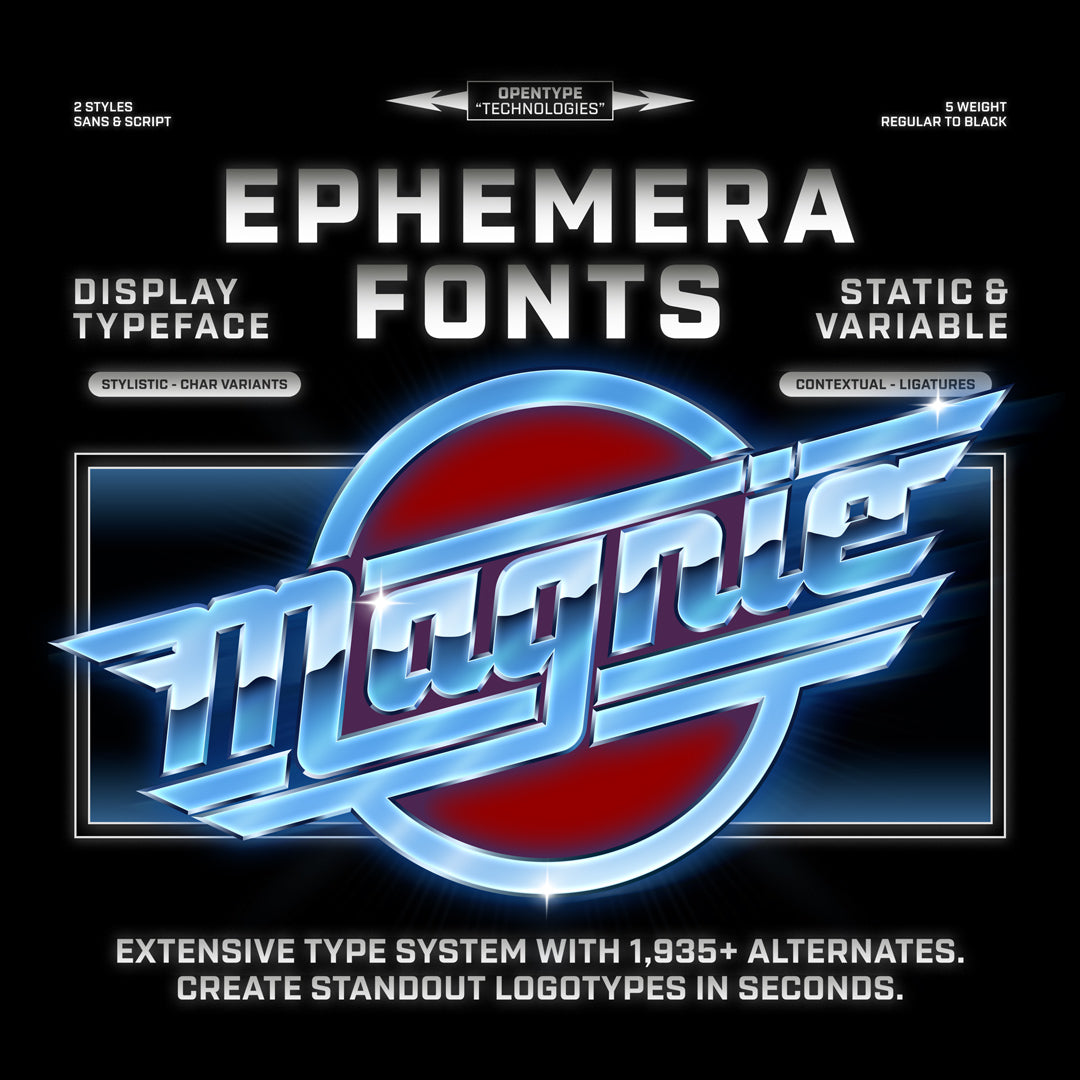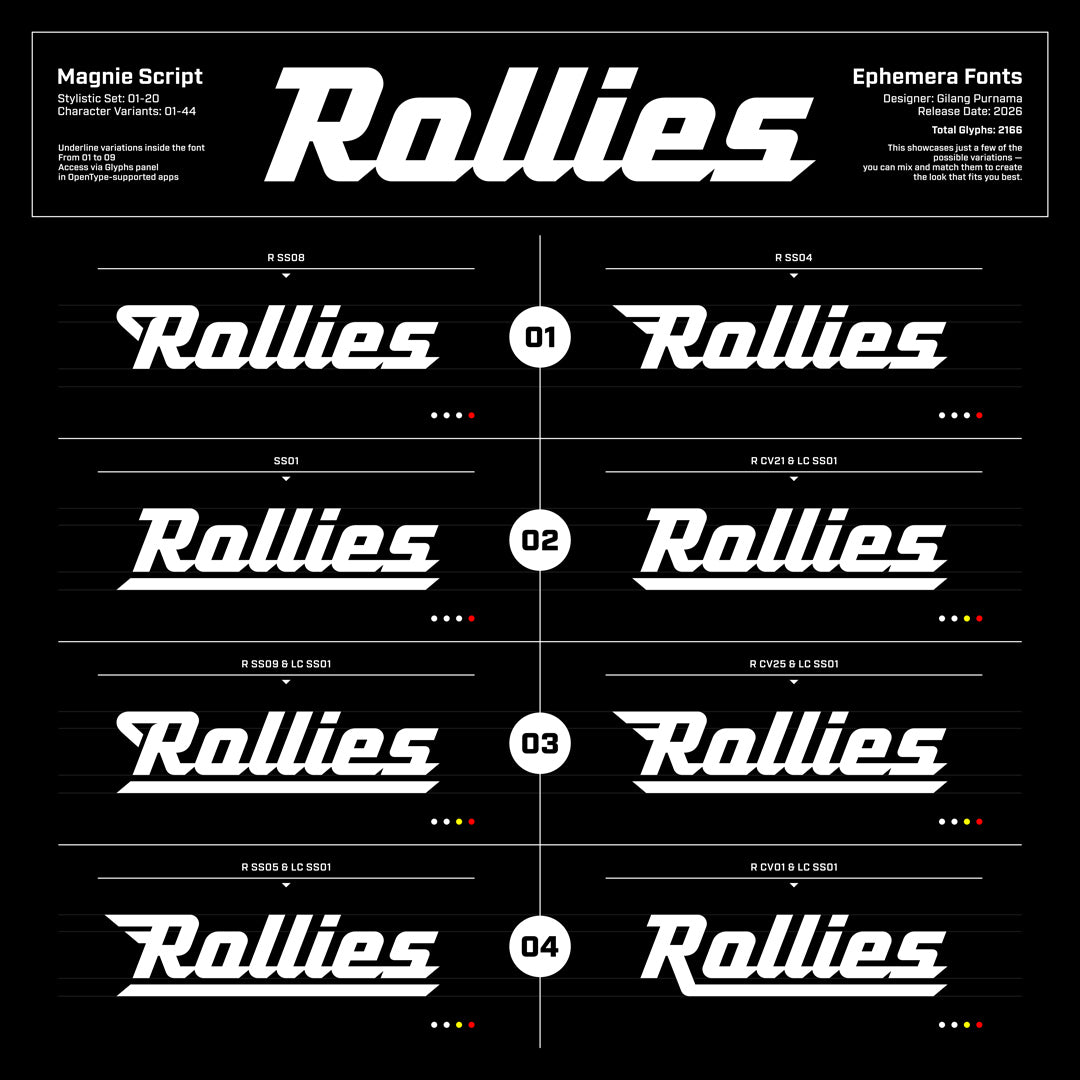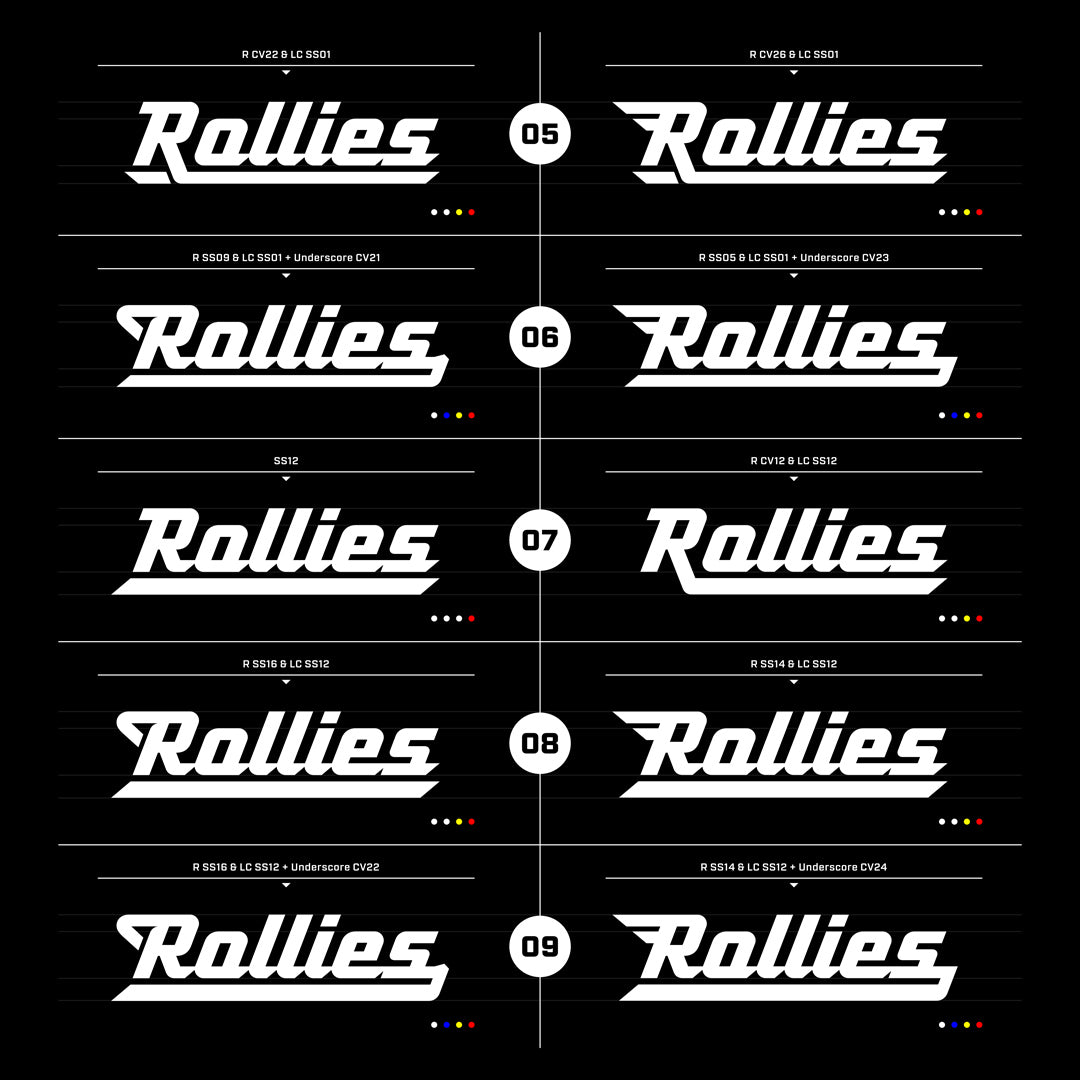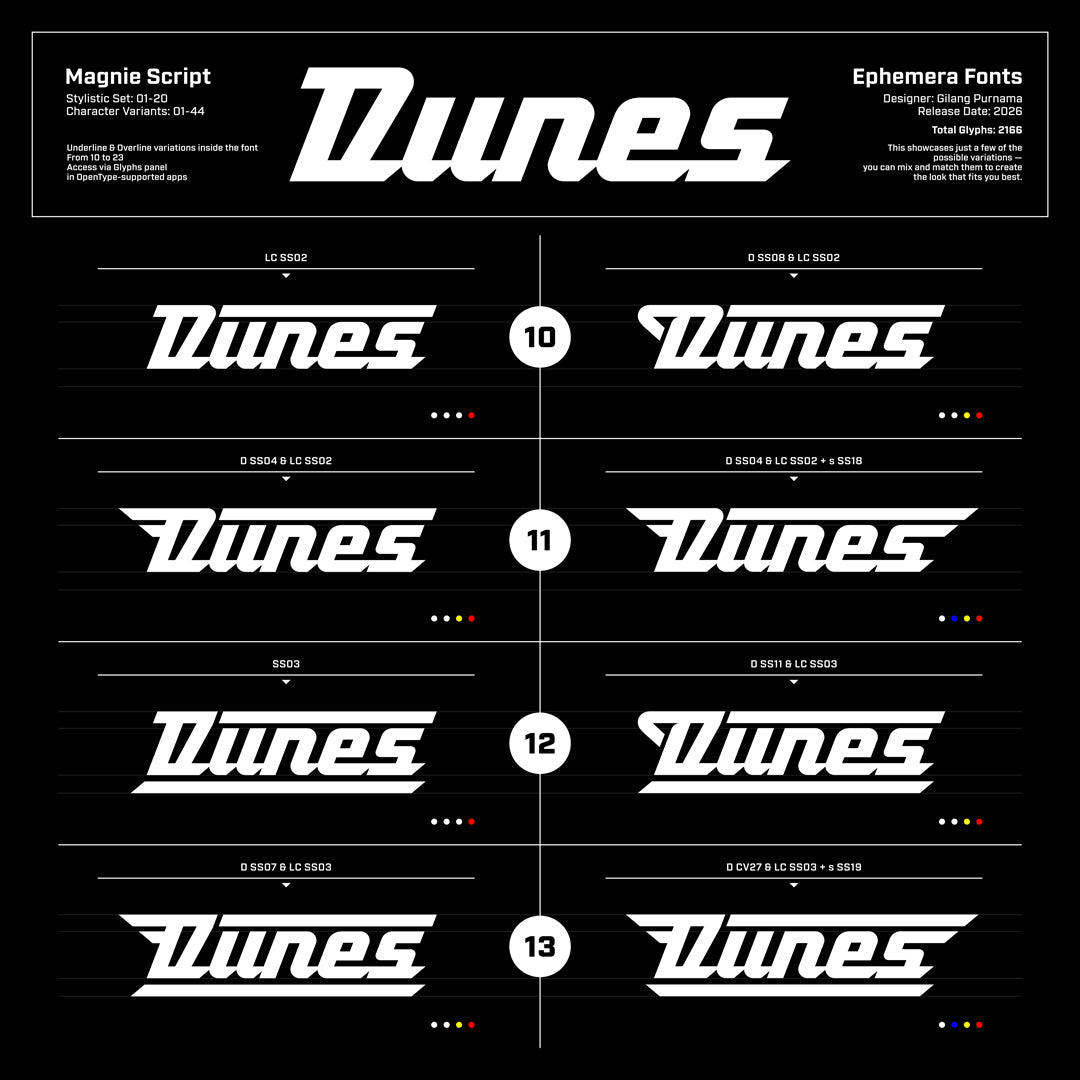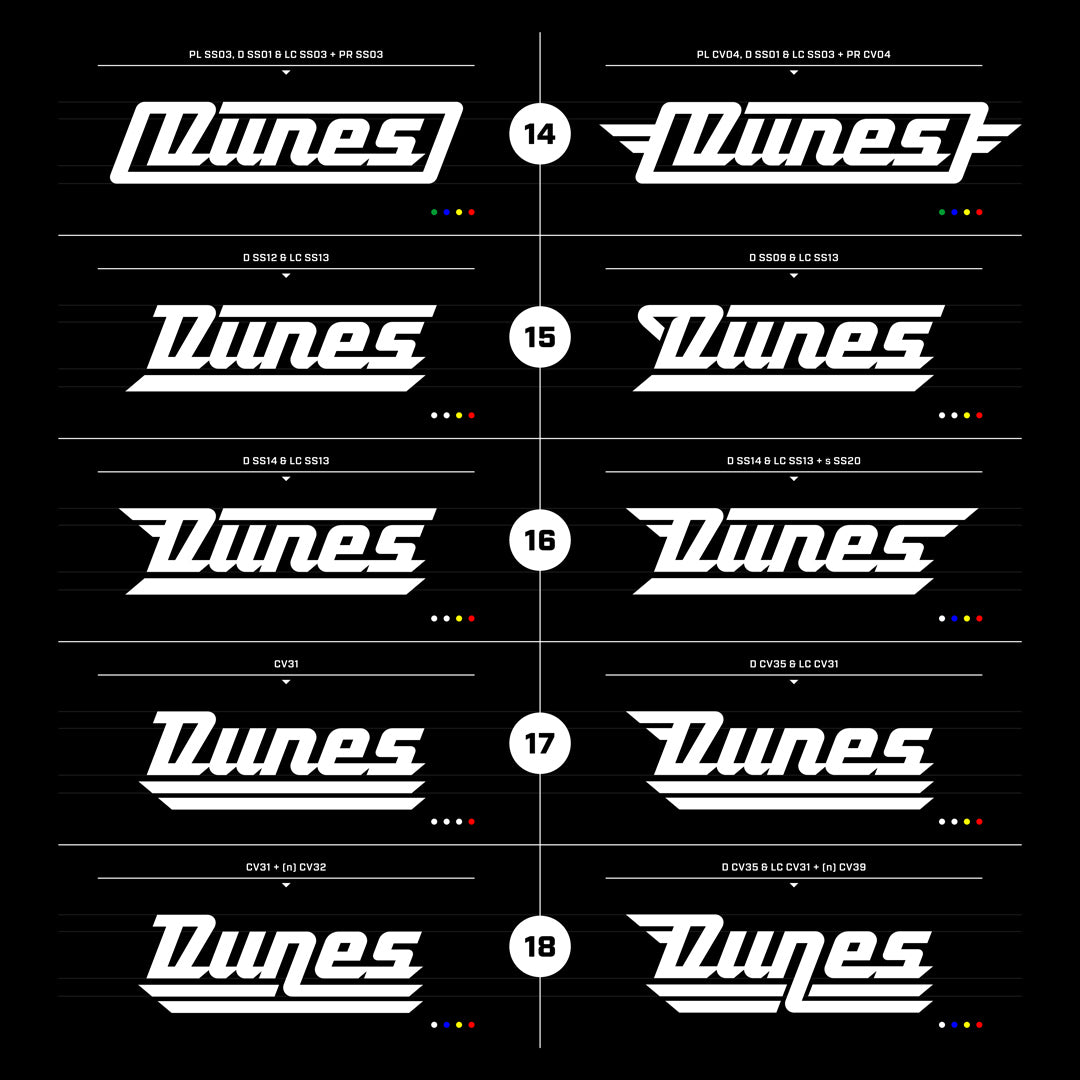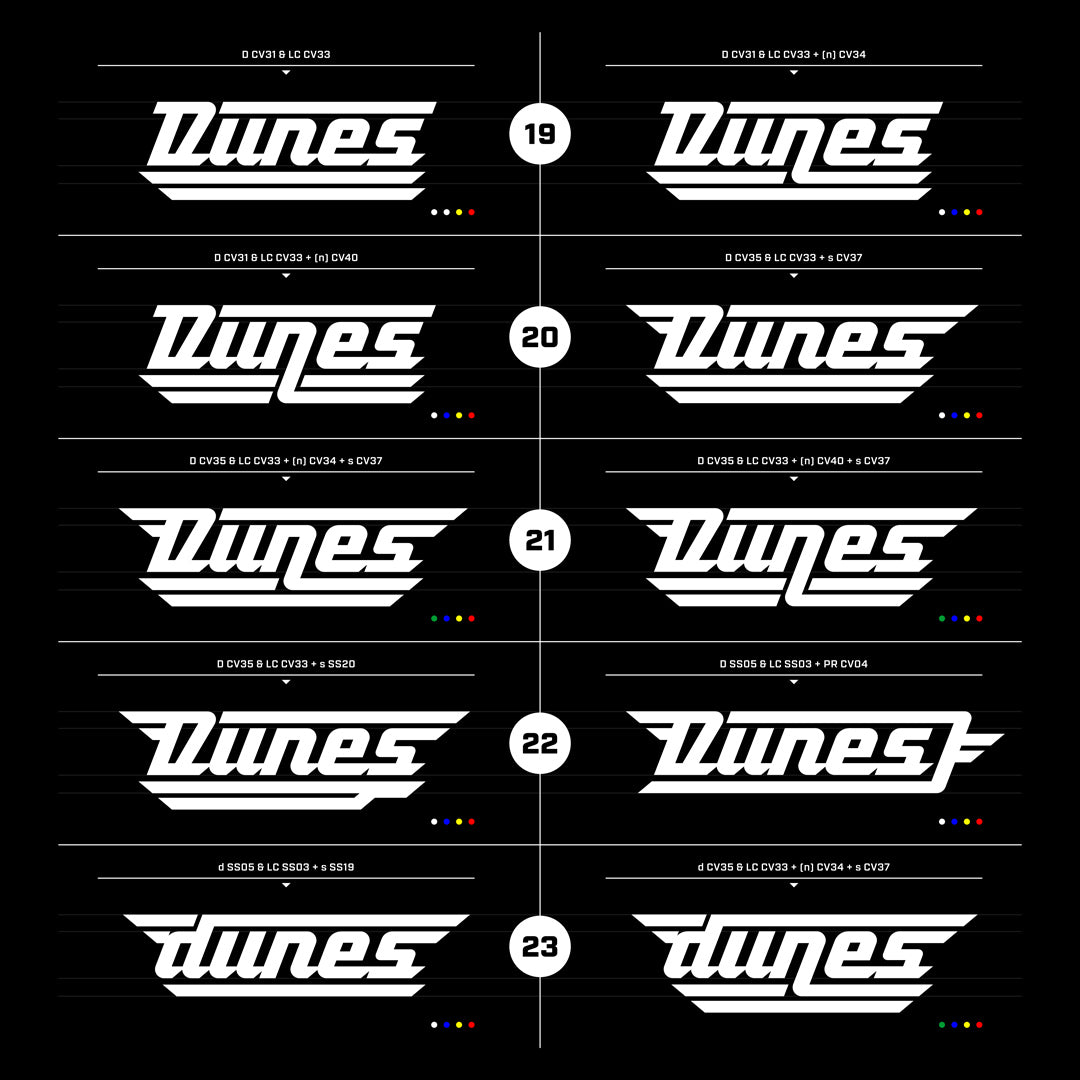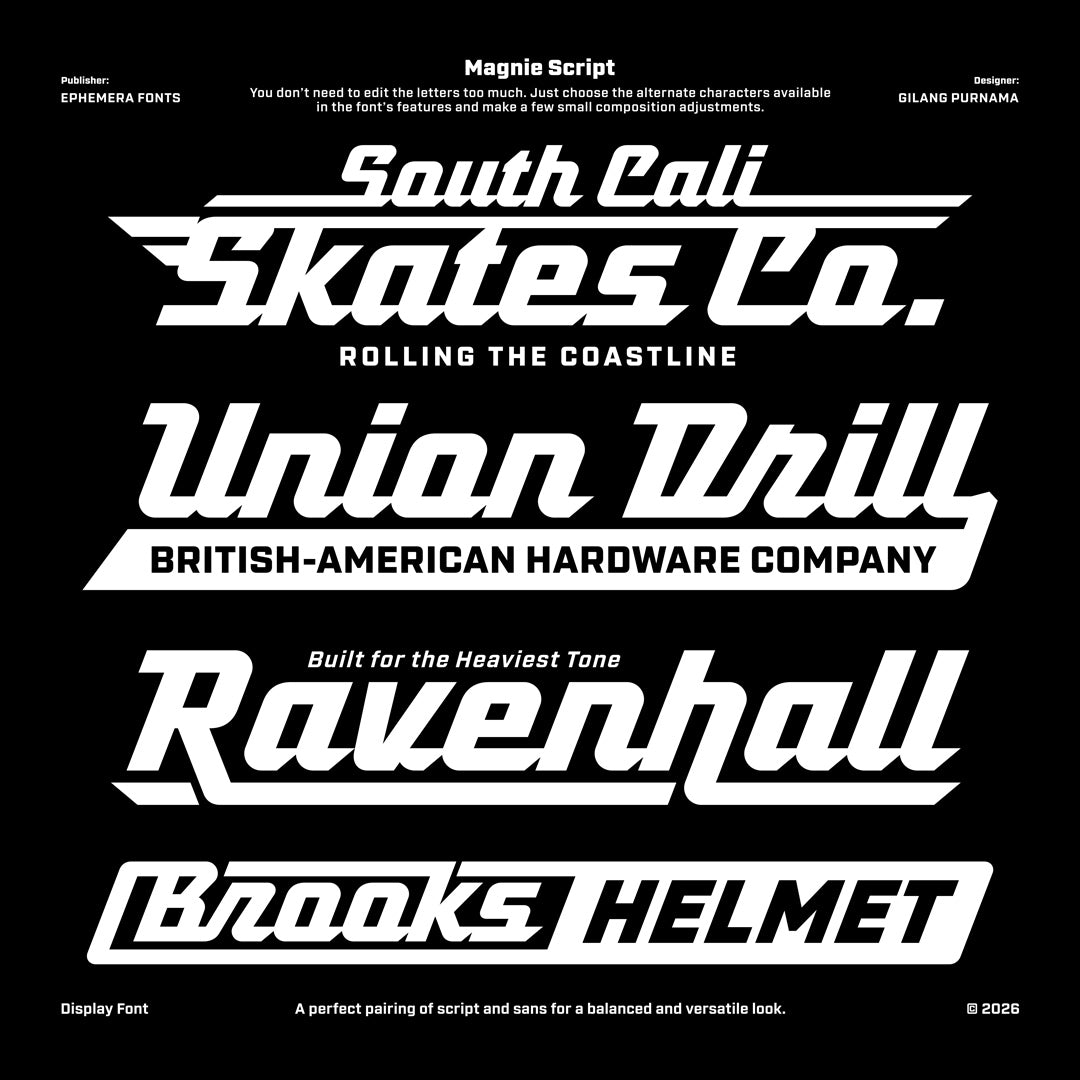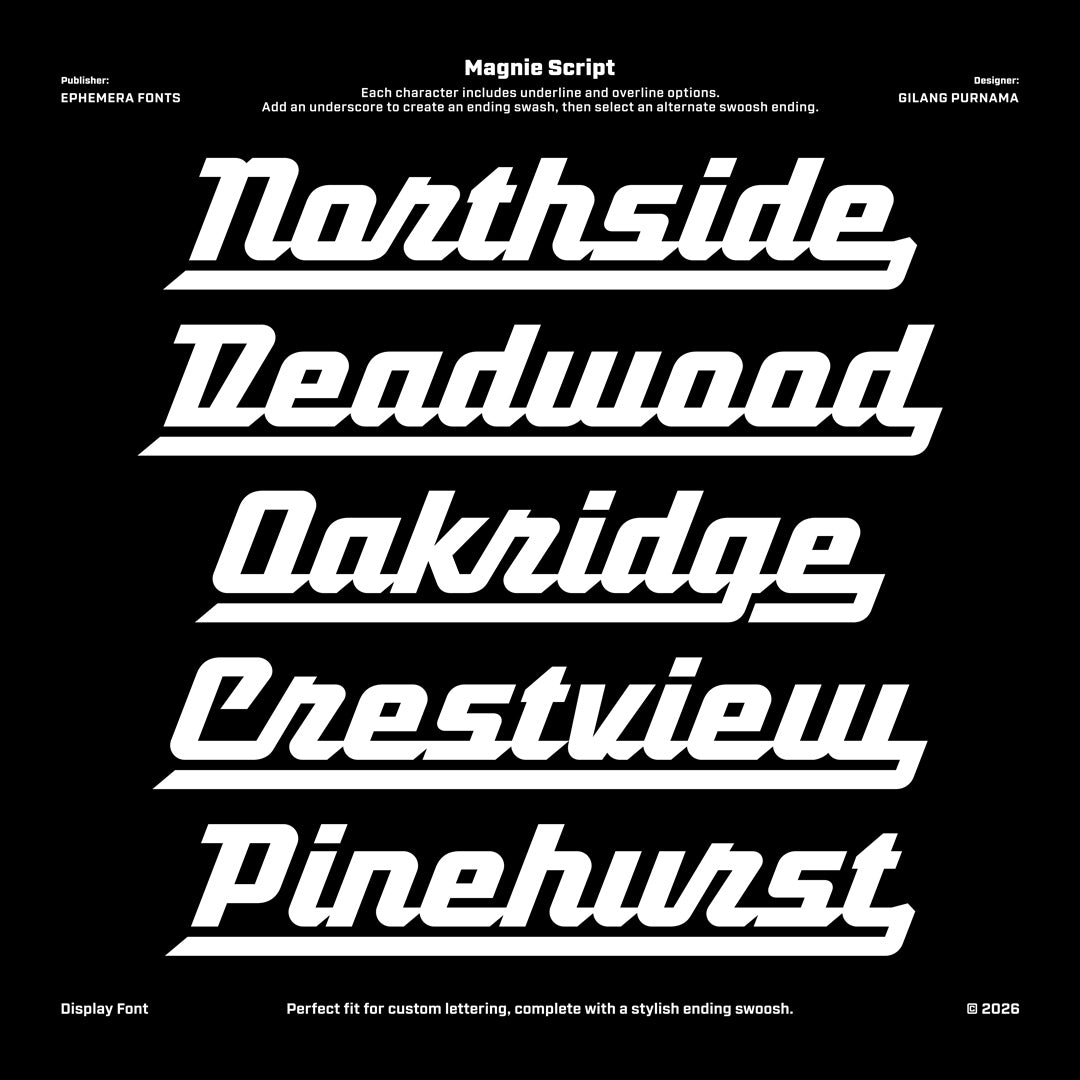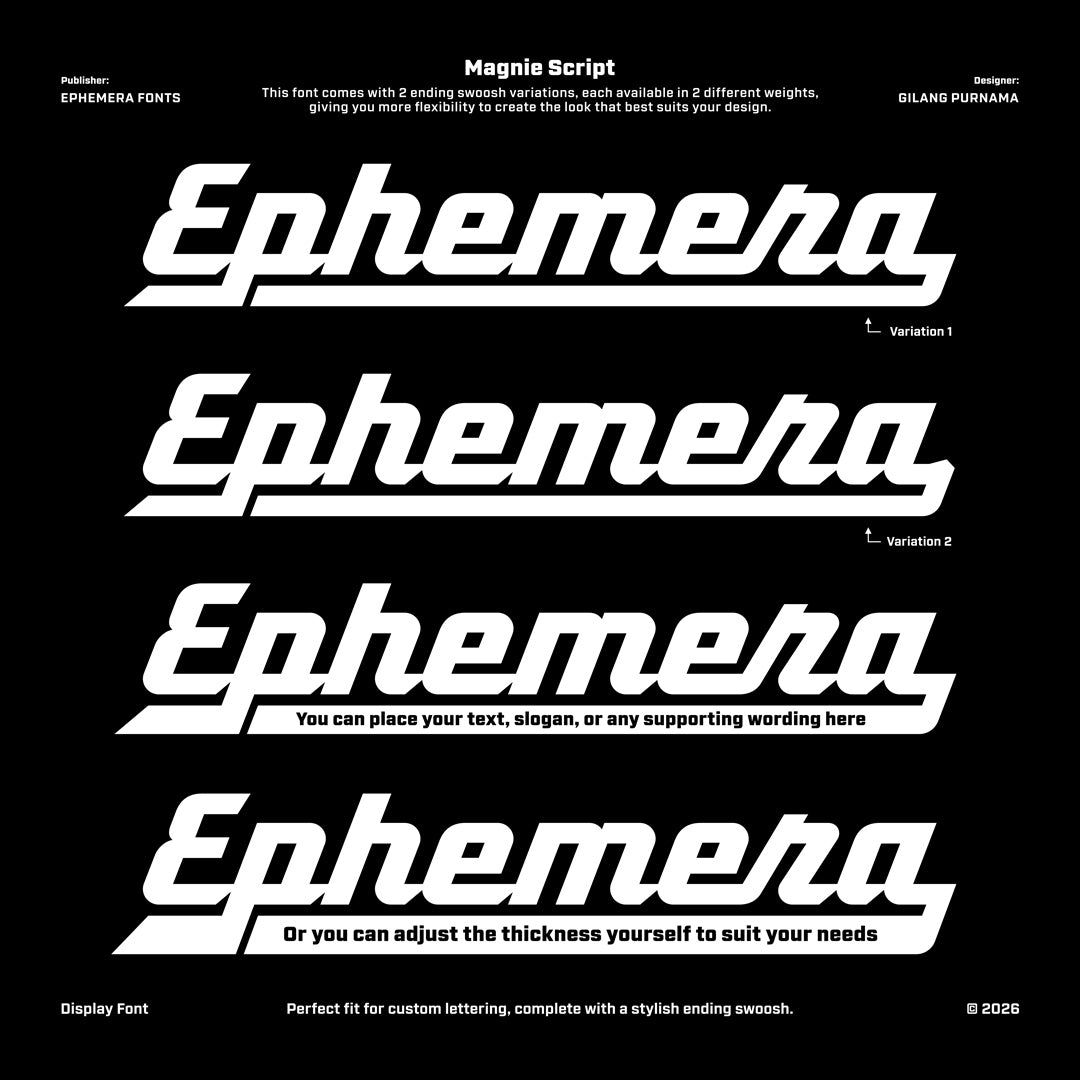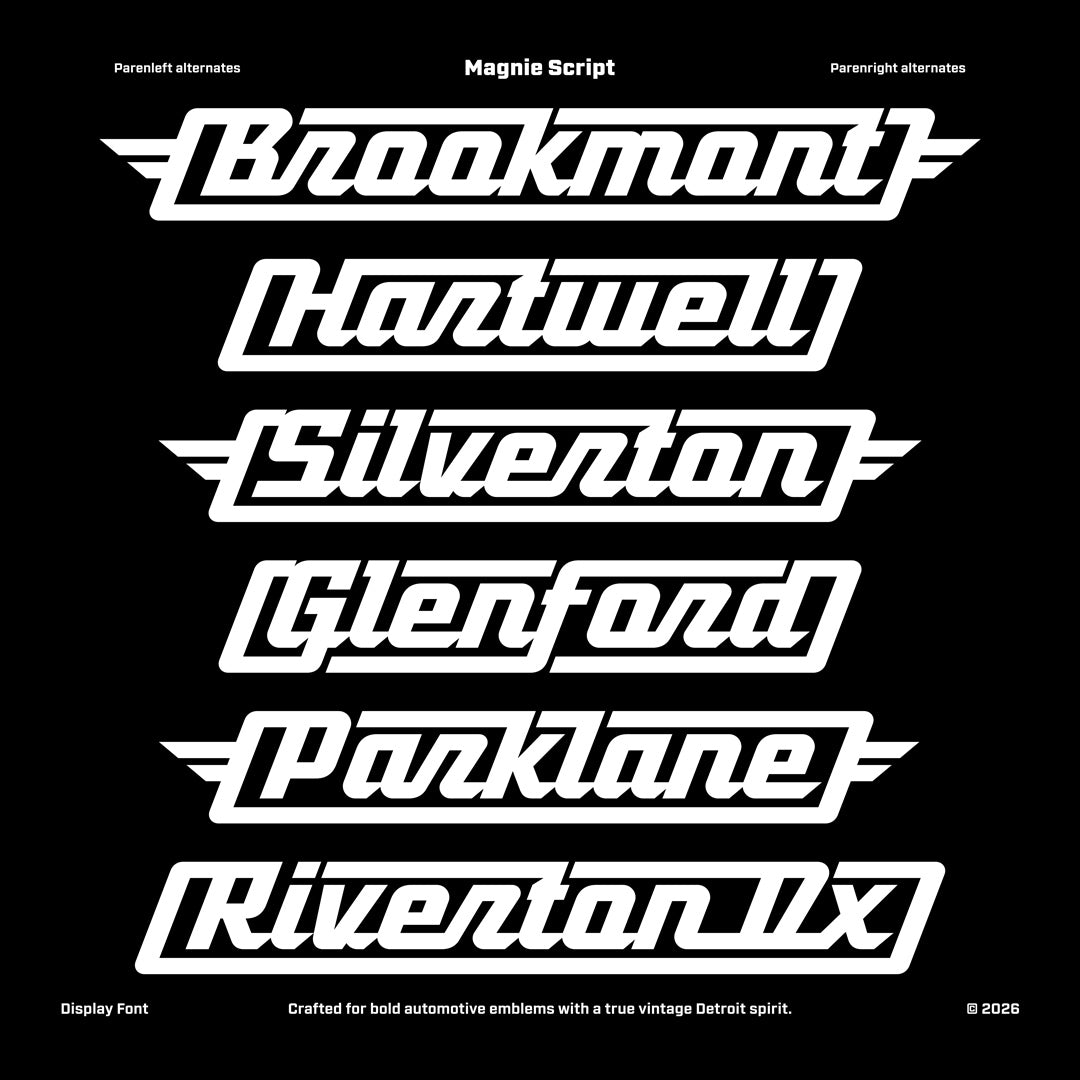
Magnie – Indie Rock Display Font
Retro Display Font + Sans Pairing for Logos, Branding, Emblems, and Vintage-Inspired Design
Bring bold retro character to your work with Magnie Font Duo, a versatile font package made for logo design, band logos, amplifier branding, car emblems, packaging, posters, apparel, merch, and social graphics.
At the core is Magnie Display, a standout retro display font loaded with around 1,900 alternate glyphs for building custom-looking logotypes, headline designs, and vintage-style lettering with ease.
Paired with it is Magnie Sans, a clean and flexible sans serif family with 6 static styles + 1 variable font, giving you everything you need for supporting text, layouts, and complete branding systems.
Perfect for designers who need a logo font, vintage font, band logo font, or display and sans pairing that feels bold, nostalgic, and highly usable across many projects.
Magnie Script
Around 1,900 alternate glyphs
Magnie Sans Display
6 static families + 1 variable font
Perfect for
Logos, branding, band artwork, amplifier logos, car emblems, packaging, labels, posters, apparel, merch, and social media graphics.
Magnie is a versatile font duo featuring a retro display font with approximately 1,900 alternate glyphs and a clean sans serif family that includes 6 static styles and 1 variable font. This package is designed for logo design, branding, and vintage-inspired projects, providing a comprehensive solution for creating custom logotypes and supporting text.